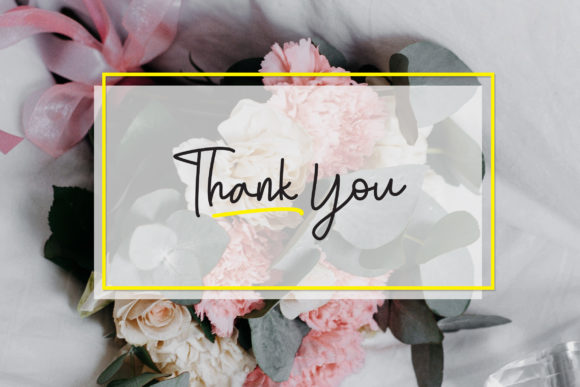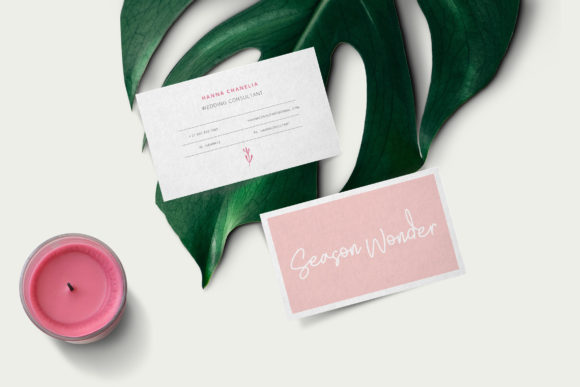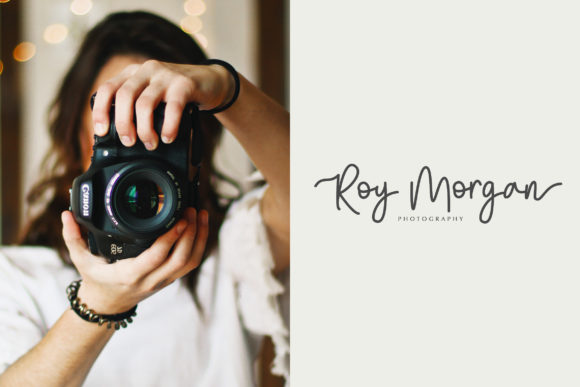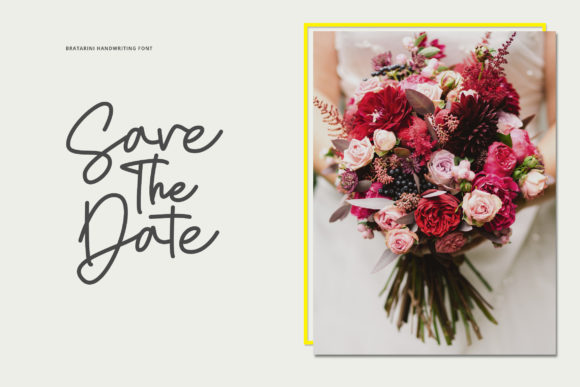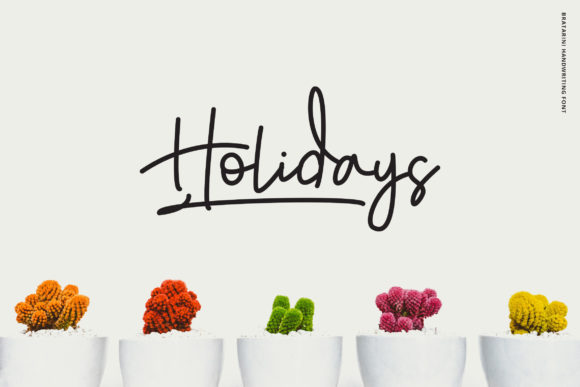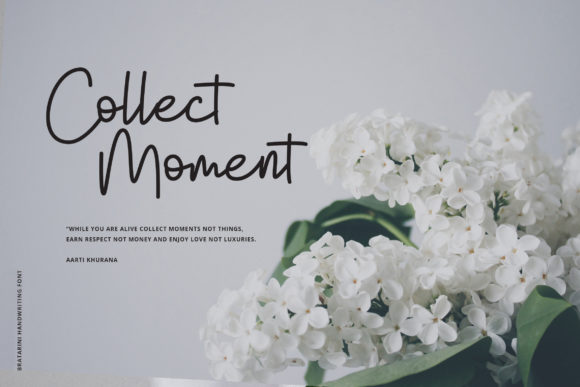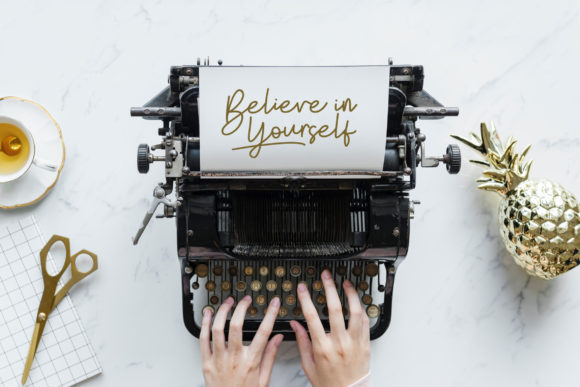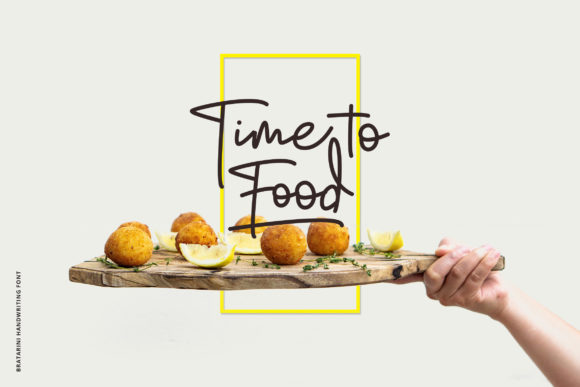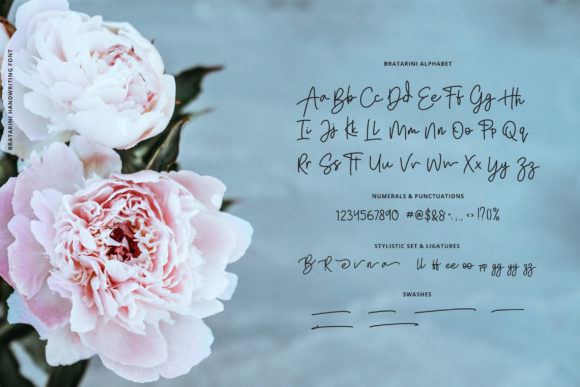
HomeScript FontsBratarini Font Script Fonts Bratarini Font FacebookXPinterestWhatsApp Bratarini Font Poster 2 Bratarini Font Poster 3 Bratarini Font Poster 4 Bratarini Font Poster 5 Bratarini Font Poster 6 Bratarini Font Poster 7 Bratarini Font Poster 8 Bratarini Font Poster 9 Bratarini Font Poster 10 About Bratarini Font Bratarini is a light and breezy handwritten font with a unique twist. Get inspired by its authentic charm! DOWNLOAD NOW People also explored Neylisa Font Cloudy Font Star Slab Font Monika Font Snogville Font Simply Dreams Font Causting Font Vormation Font Kitty Fat Font 321 0 TagsBratarini Font Previous articleSpeakup Script FontNext articleSri Kandi Font LEAVE A REPLY Cancel reply Comment: Please enter your comment! Name:* Please enter your name here Email:* You have entered an incorrect email address! Please enter your email address here Website: Save my name, email, and website in this browser for the next time I comment. Personal Use Free Clumed Personal Use Free Read more about this font Sehat Selalu Personal Use Free Read more about this font Good Luck Personal Use Free Read more about this font Tomatoes Personal Use Free Read more about this font BLOG Where to Buy American Fonts Online in 2024 Where to Buy American Fonts Online: The Ultimate Guide for 2024 Looking for the perfect American font to elevate your design projects? You're in the... Best Fonts for T-Shirt Design – Top 2025 Picks Fonts That Capture the Spirit of New York City Free Fonts Risk: Why Free Fonts Can Be Dangerous for Designers